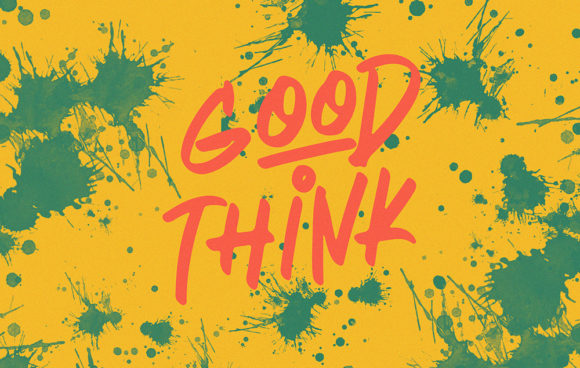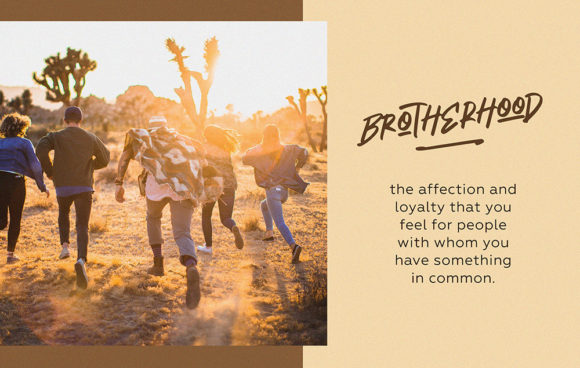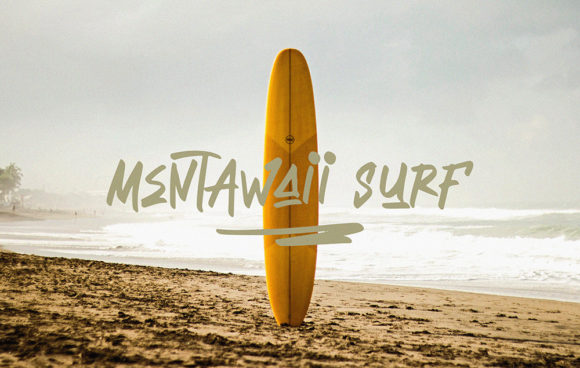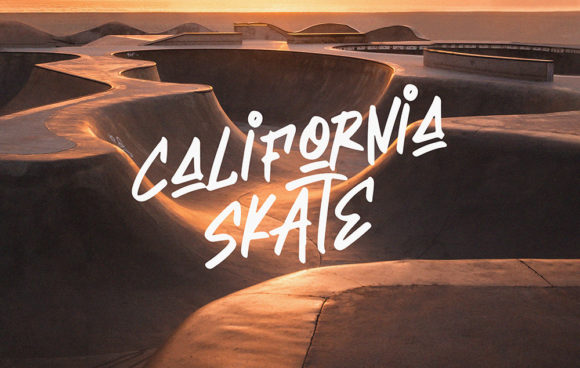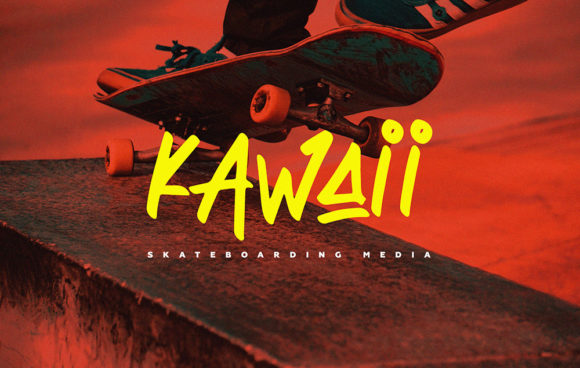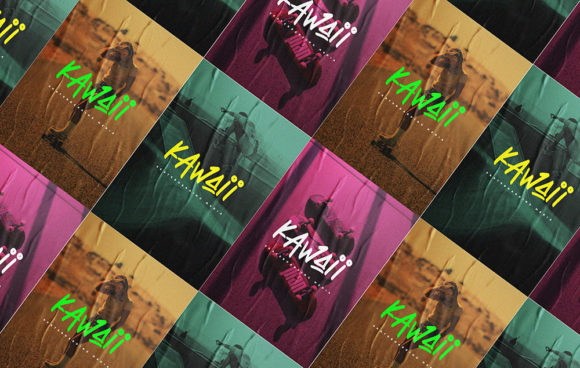
Unleash Your Creativity with Harley Font: The Ultimate Graffiti-Styled Display Font
Are you a designer or crafter looking for a font that can add a touch of street art vibe to your designs? Look no further than Harley Font, a graffiti-styled display font that is perfect for creating bold and eye-catching designs. In this article, we’ll take a closer look at Harley Font, its features, and how you can use it to take your designs to the next level.
What is Harley Font?
Harley Font is a unique and stylish graffiti-styled display font that is inspired by the street art scene. Its bold and edgy design makes it perfect for creating designs that require a bit of attitude and swagger. Whether you’re designing a logo, advertisement, or t-shirt, Harley Font is sure to make a statement.
Features of Harley Font
So, what makes Harley Font so special? Here are some of its key features:
- Graffiti-styled design: Harley Font has a bold and edgy graffiti-styled design that is perfect for creating street art-inspired designs.
- Display font: Harley Font is a display font, which means it’s designed to be used at larger sizes, making it perfect for headlines, titles, and logos.
- Street art vibe: Harley Font has a distinct street art vibe that is sure to add a touch of urban flair to your designs.
- Versatile: Harley Font is a versatile font that can be used for a wide range of designs, from t-shirts and sportswear to logos and advertisements.
Uses of Harley Font
So, how can you use Harley Font in your designs? Here are some ideas to get you started:
- T-shirts and apparel: Harley Font is perfect for designing bold and eye-catching t-shirts, hoodies, and other apparel.
- Sportswear: Add a touch of street art vibe to your sportswear designs with Harley Font.
- Logos and branding: Harley Font is a great choice for designing logos and branding materials that require a bold and edgy look.
- Advertisements: Use Harley Font to create eye-catching advertisements that are sure to grab attention.
- Clothing and fashion: Harley Font is perfect for designing clothing and fashion-related materials, such as labels, tags, and packaging.
Tips for Using Harley Font
Here are some tips for using Harley Font in your designs:
- Use it boldly: Harley Font is a bold font, so don’t be afraid to use it boldly. Experiment with different sizes and colors to create a statement piece.
- Pair it with other fonts: Harley Font can be paired with other fonts to create a unique and interesting design. Try pairing it with a sans-serif font for a bold and edgy look.
- Experiment with colors: Harley Font looks great in bold and bright colors. Experiment with different colors to find the one that works best for your design.
| Font Name | Harley Font |
| Author | Arsa Visual |
Harley Font is a unique and stylish graffiti-styled display font that is perfect for designers and crafters looking to add a touch of street art vibe to their designs. With its bold and edgy design, Harley Font is sure to make a statement in any design. Whether you’re designing a logo, advertisement, or t-shirt, Harley Font is a great choice. So why not give it a try and see what amazing designs you can create?